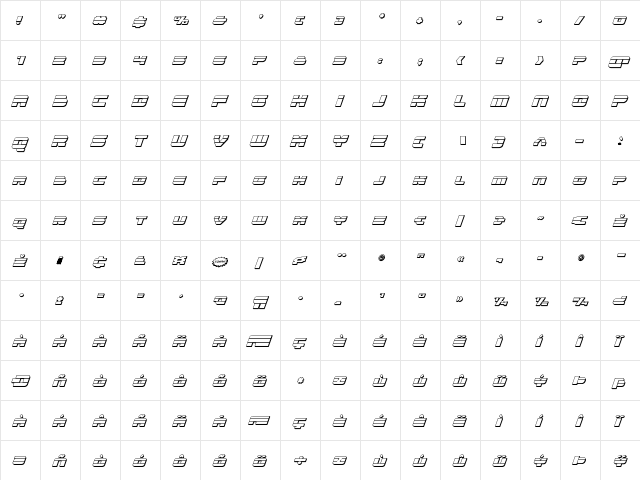
Quicken 3D Italic Italic
Design Context for Quicken 3D Italic Typeface
Quicken 3D Italic is a composed and adaptable typeface that performs quietly and consistently across a wide range of design contexts. The dynamic lean of this cut emphasises speed and emphasis in any layout.
Pro Tip: Use Quicken 3D Italic for emphasis, pull quotes, and subheadings where its slanted energy can add rhythm to the layout.